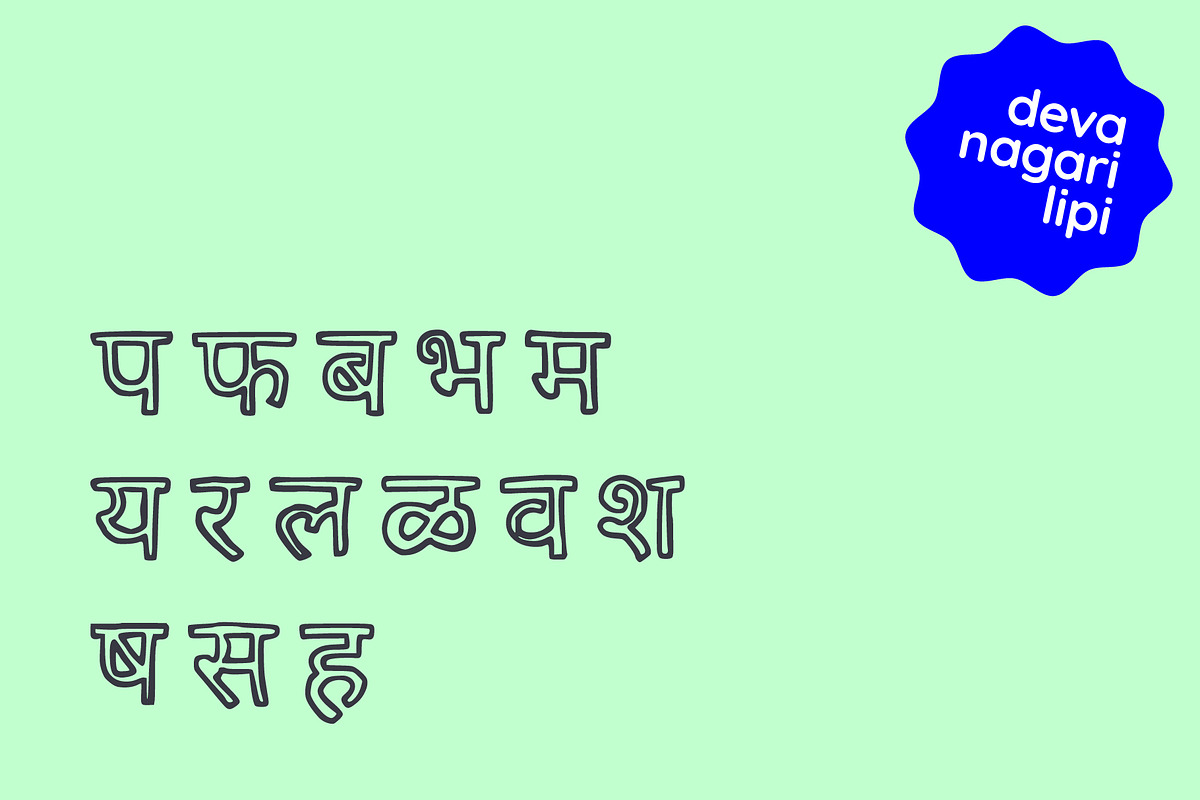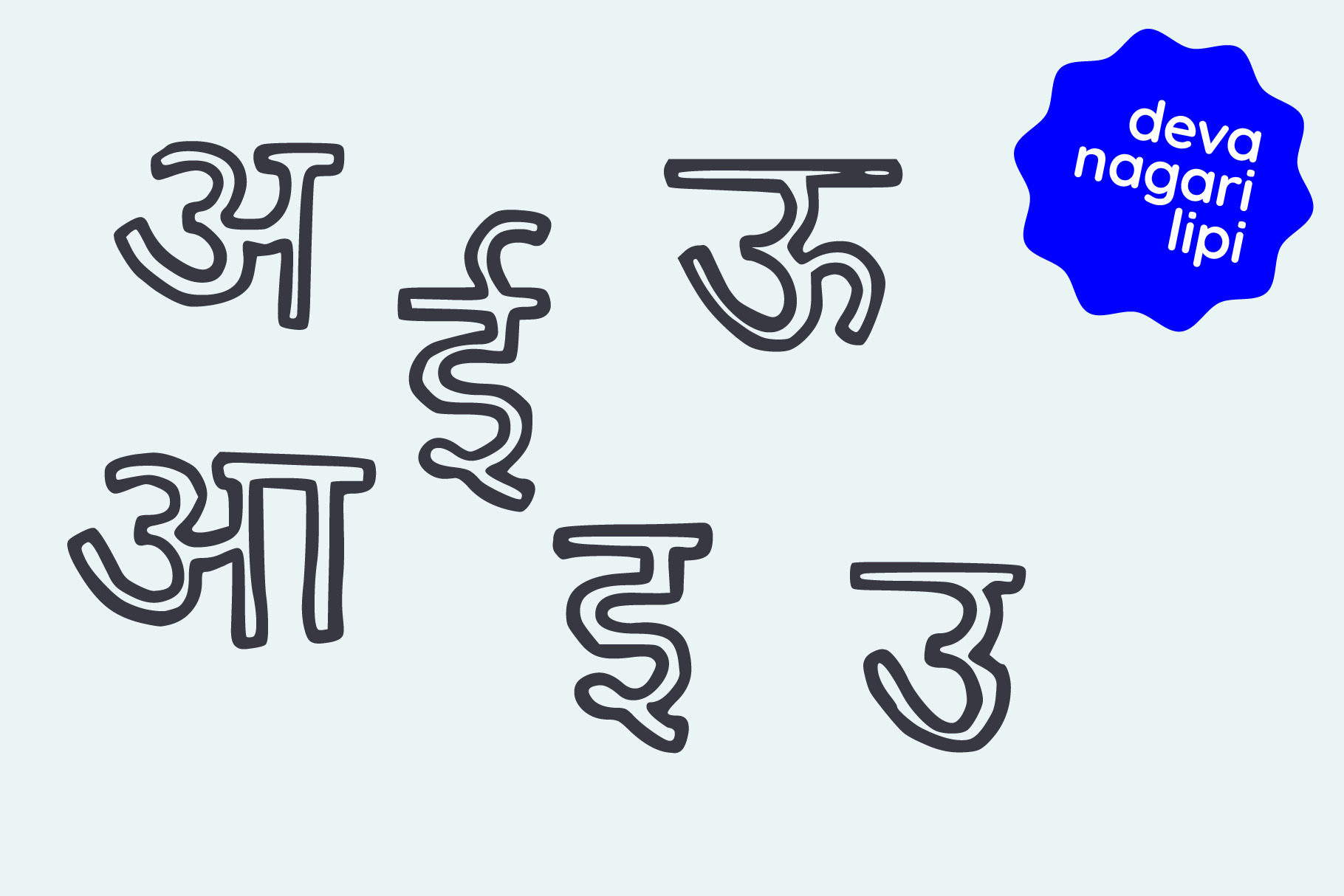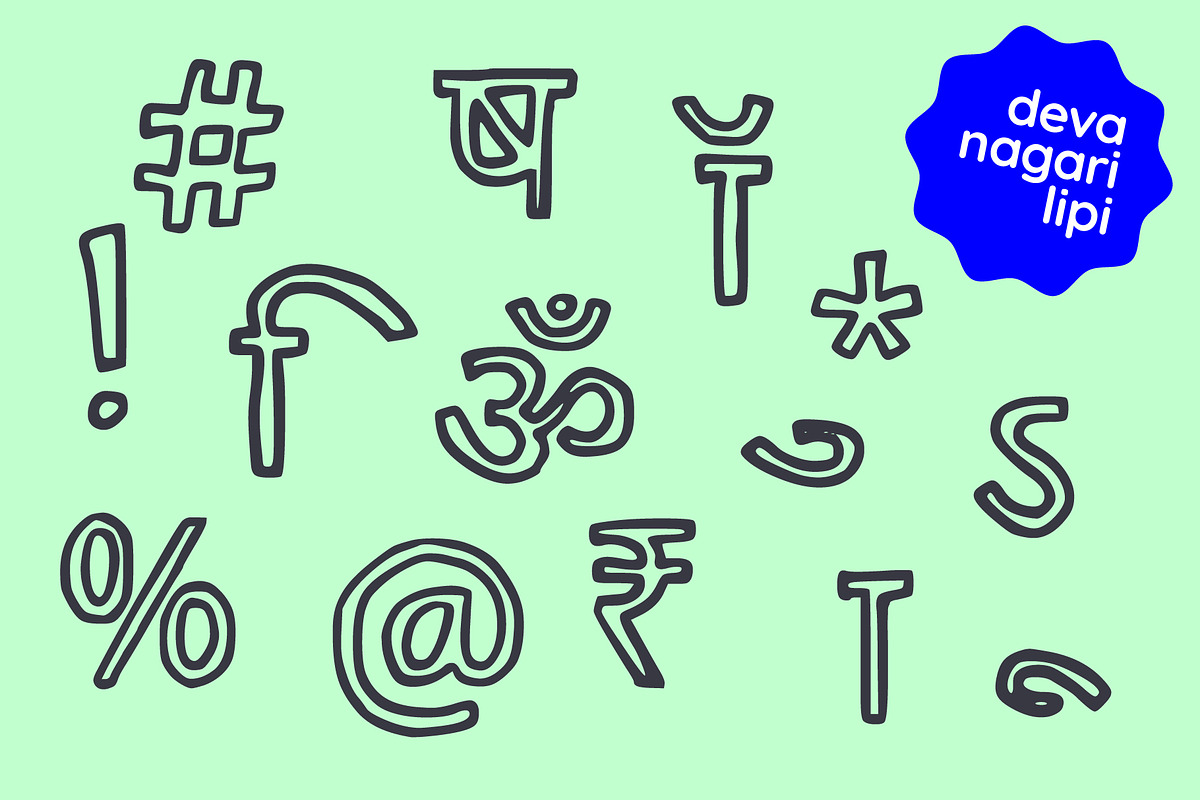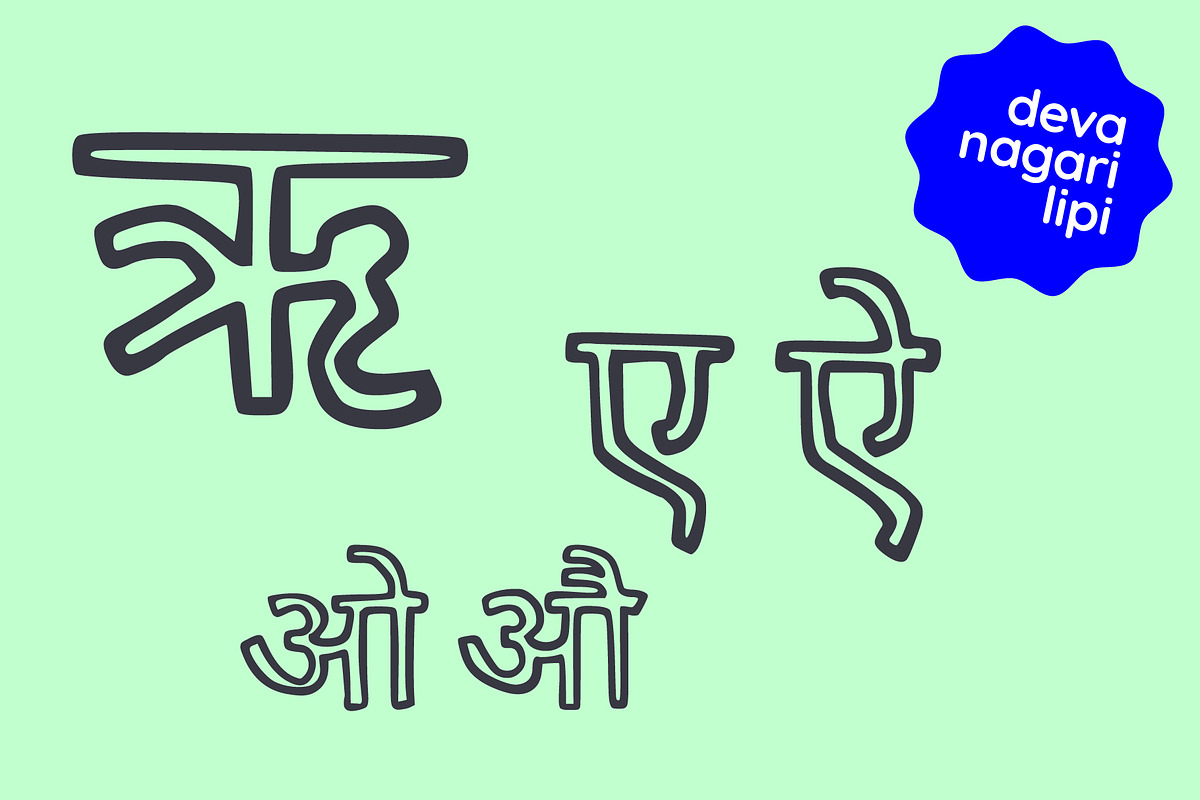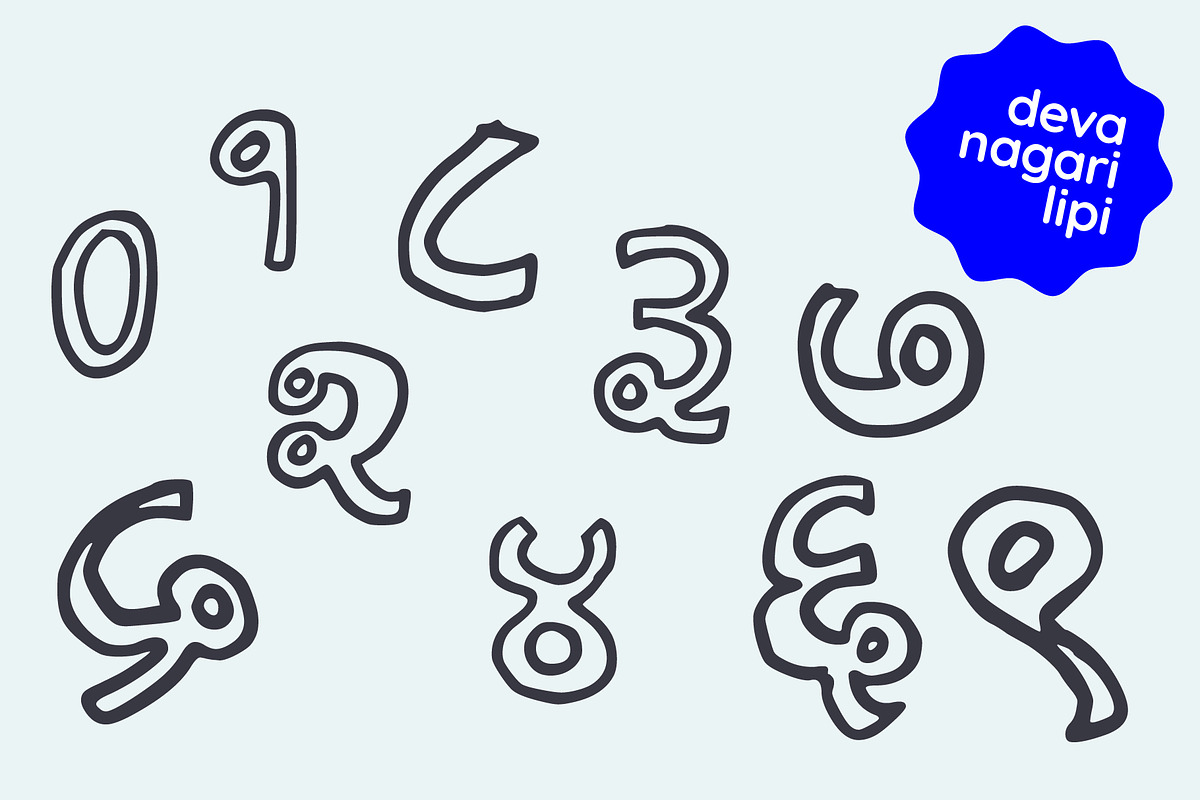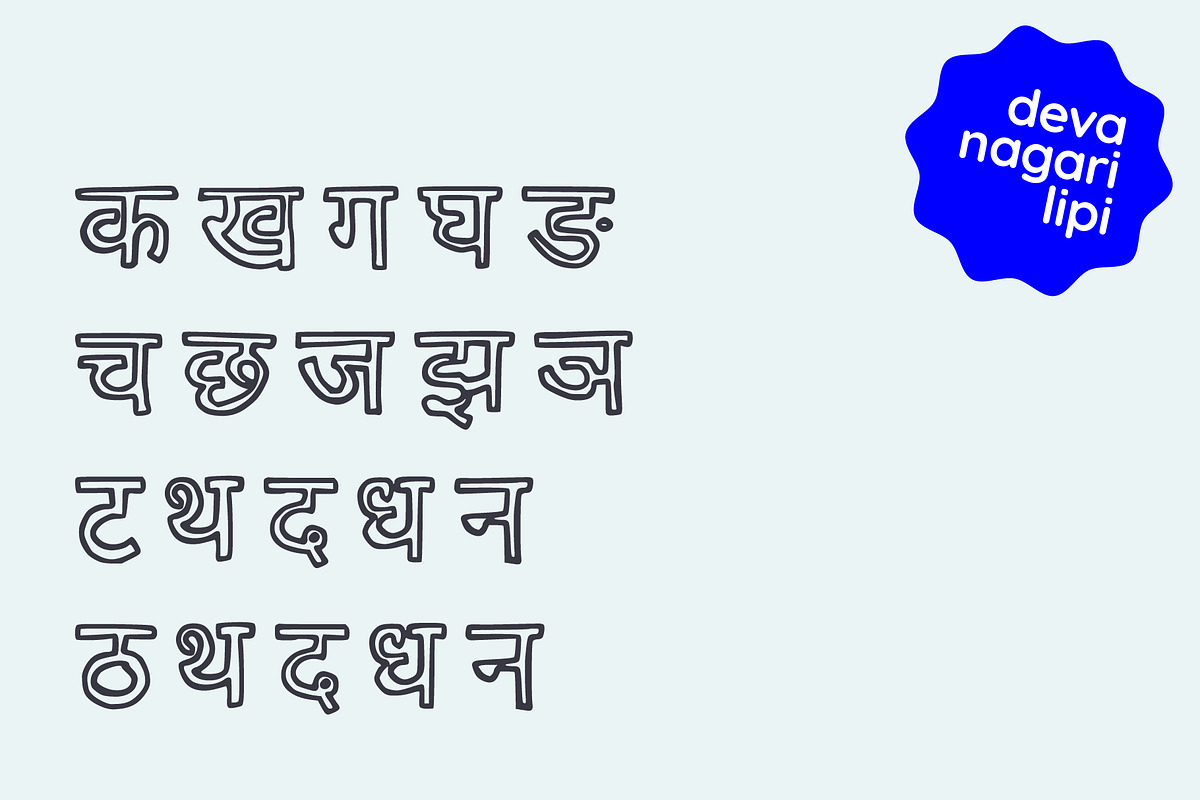
Devanagri Stencil Hindi Marathi Font
Perfect for display font, suitable for book covers, educational material, graphic design, and more.
Ober 150 glyphs included.